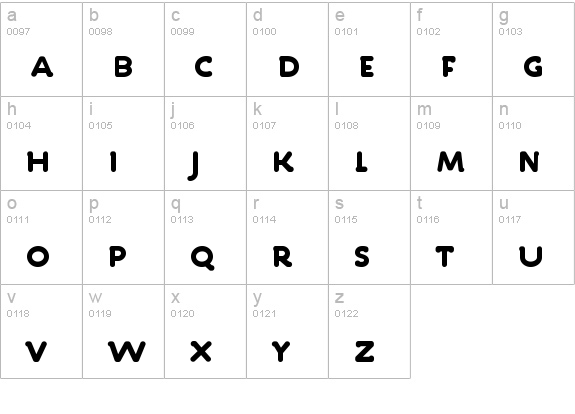
Engine-CapsBold is a sleek and modern display font that exudes power and sophistication. With its bold and striking letterforms, this font is perfect for making a statement in headlines, logos, posters, and other design projects. Engine-CapsBold is designed to grab attention and leave a lasting impression. What sets Engine-CapsBold apart is its versatility - it can be used for both digital and print projects with ease. Whether you're designing a website, creating marketing materials, or working on a branding project, Engine-CapsBold will elevate your designs to the next level. The best part? Engine-CapsBold is available for free download at FontsMarket.com. This means you can start using this impressive font in your projects right away, without having to worry about any additional costs. Don't miss out on this fantastic opportunity to add Engine-CapsBold to your font collection. Download it today and see the difference it can make in your designs.